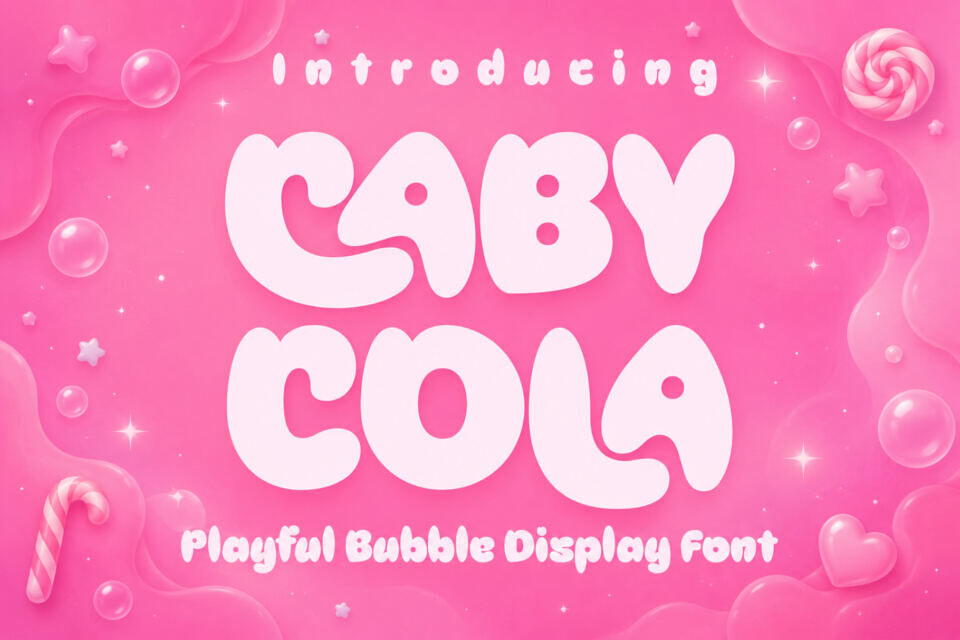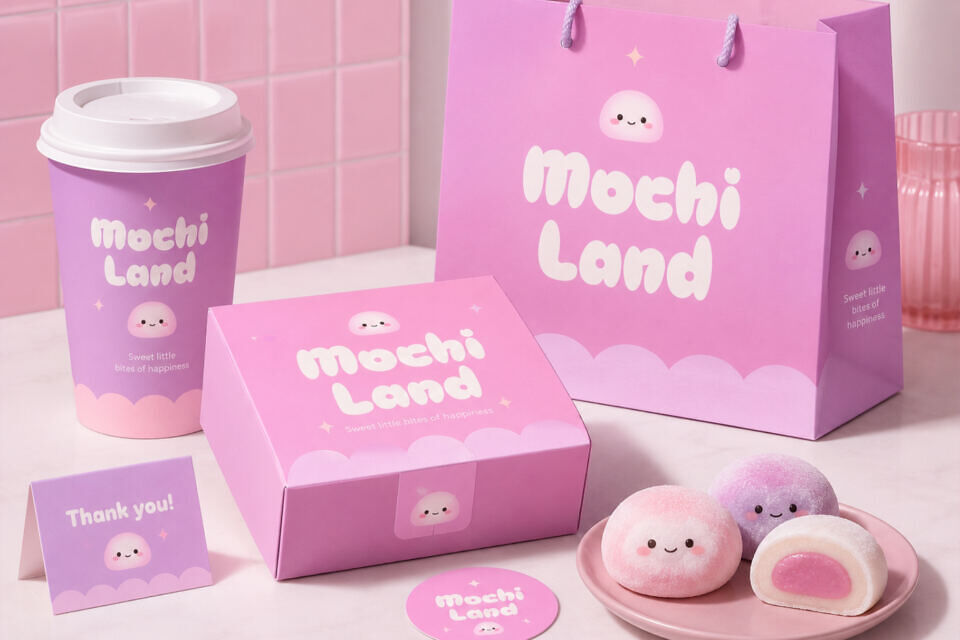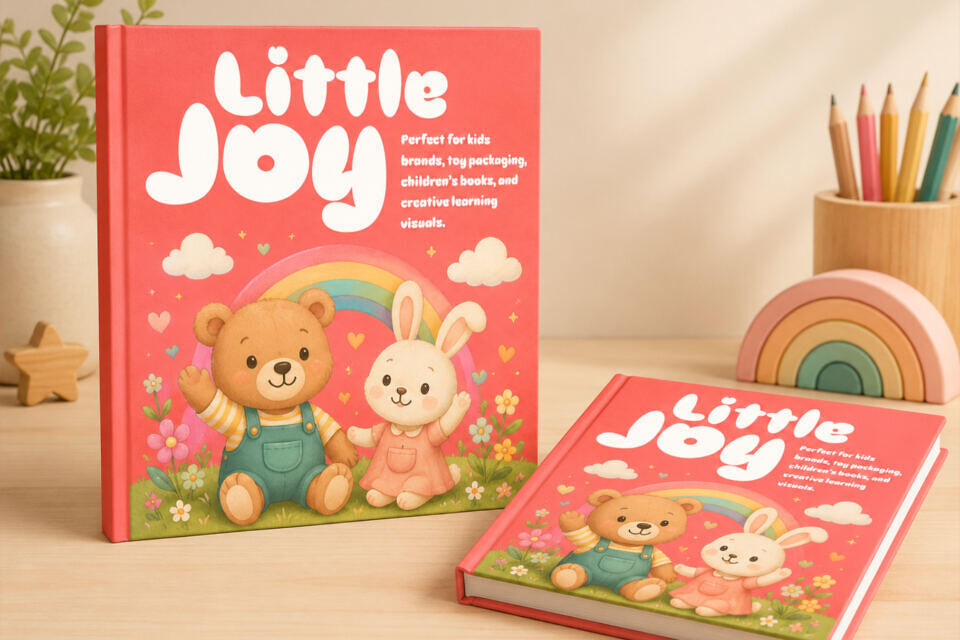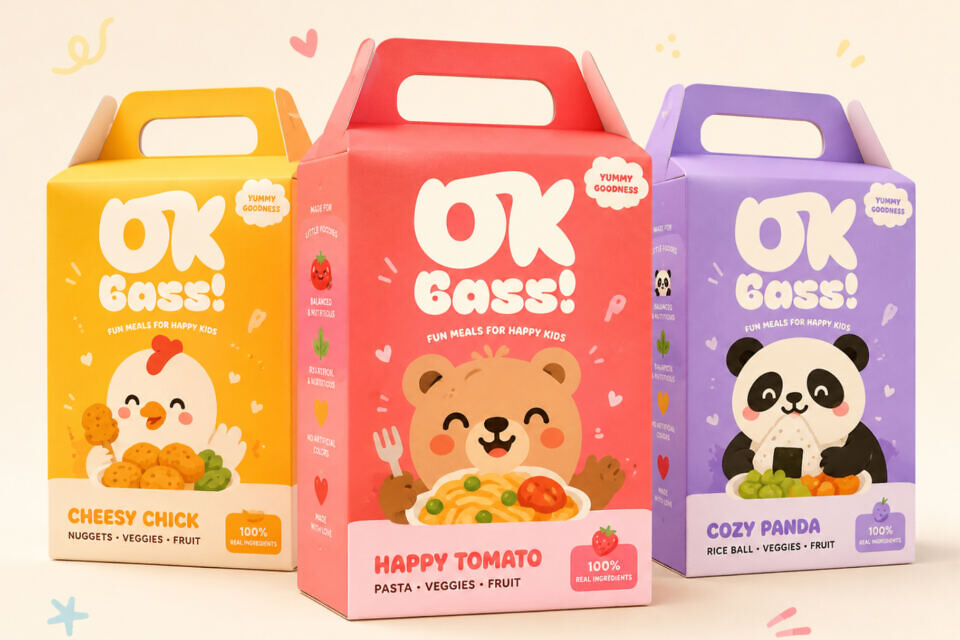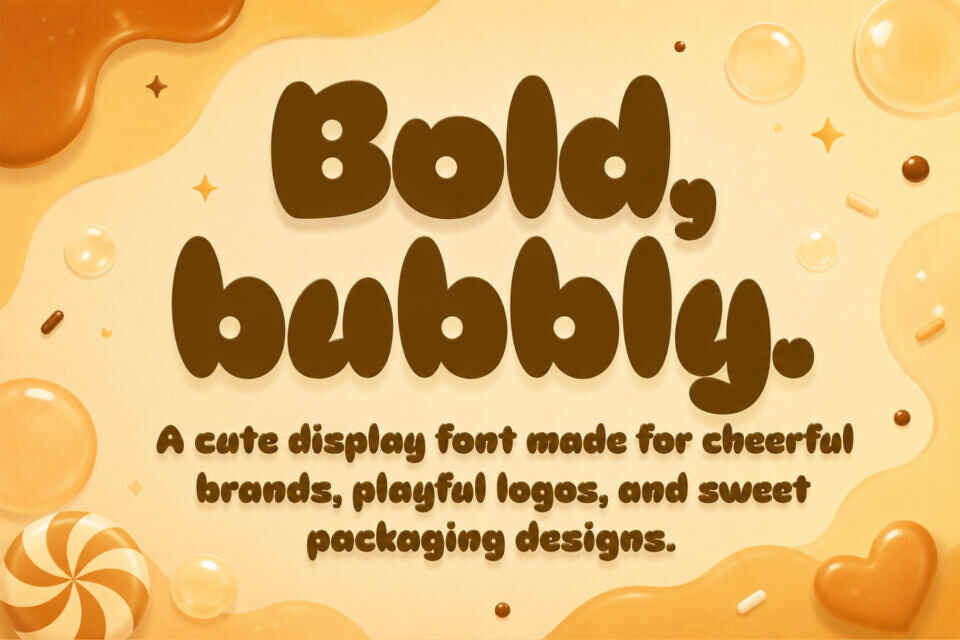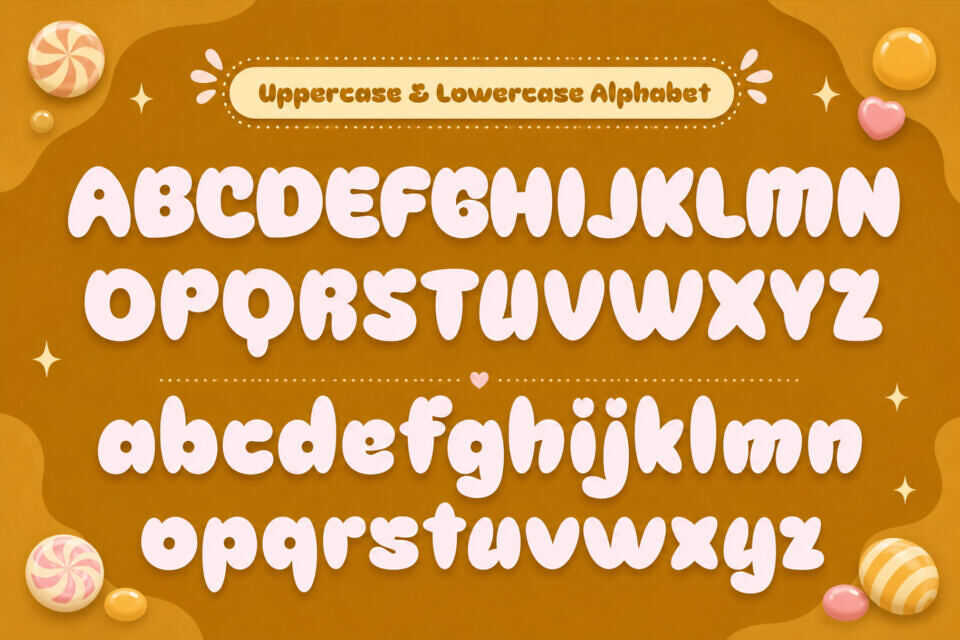
Meet Caby Cola, a bold and playful display font inspired by retro candy packaging, fizzy drinks, groovy lettering, and cheerful cartoon graphics.
Caby Cola features chunky letterforms, rounded curves, tiny bubble-like counters, and expressive details that give every word a fun and memorable personality. Its friendly appearance works especially well for designs that need to feel energetic, youthful, sweet, and slightly nostalgic.